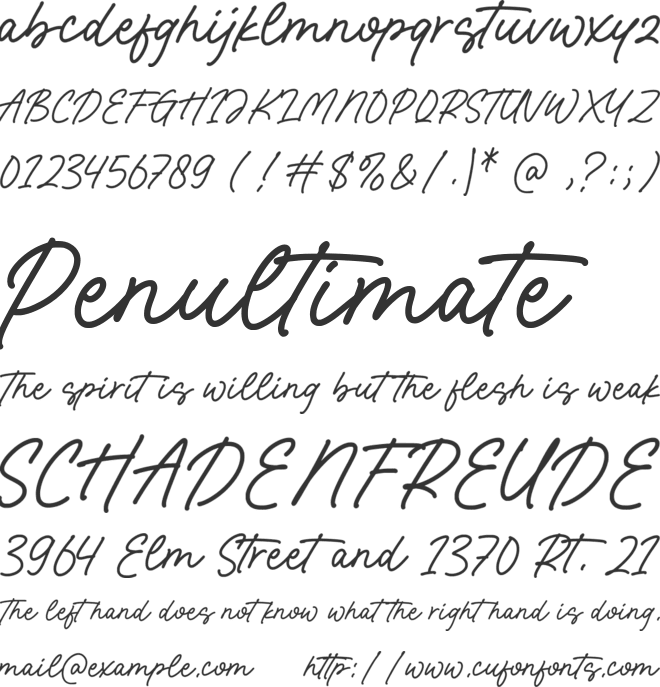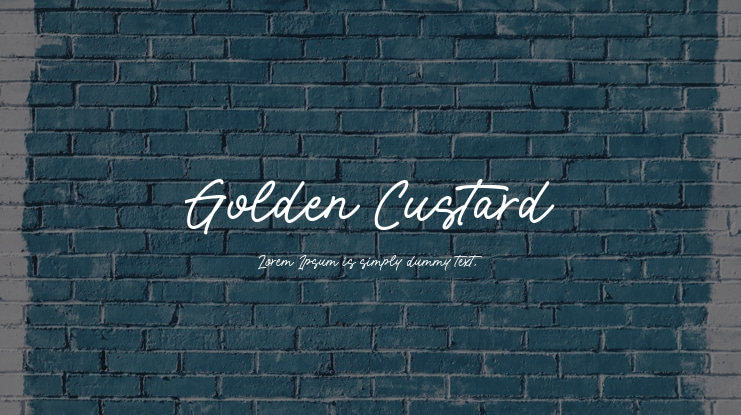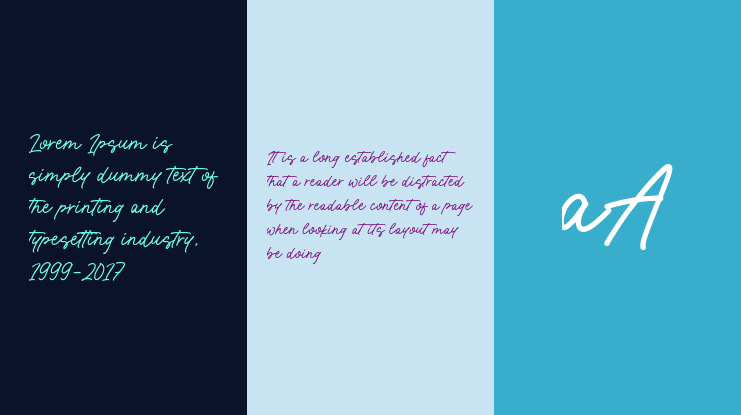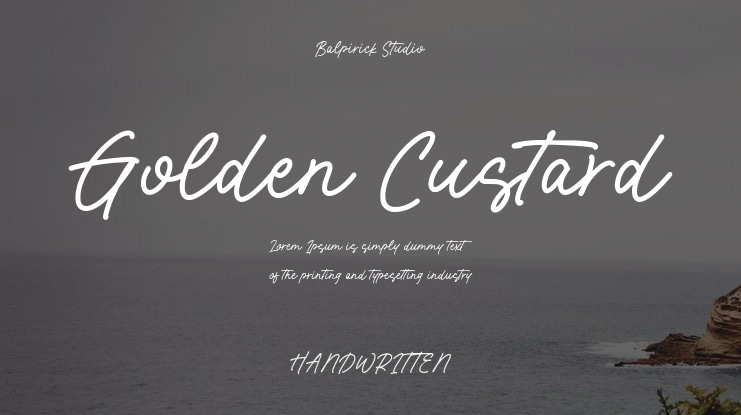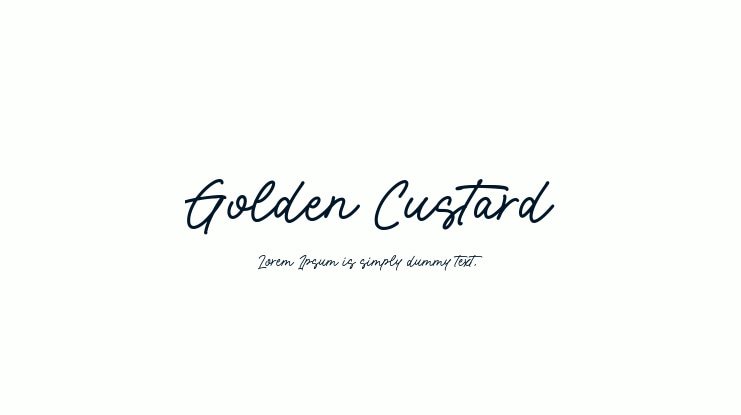
Golden Custard Font
Introducing Golden Custard, a stylish handwritten font ideal for enhancing your design endeavors! With meticulous craftsmanship and a touch of elegance, this font is highly adaptable and suitable for various design purposes such as logos, branding, invitations, and beyond. Its contemporary script exudes a distinctive charm that is bound to leave a lasting impression. The package includes TTF, OTF, and WOFF files, along with multilingual support. Thank you for your interest!